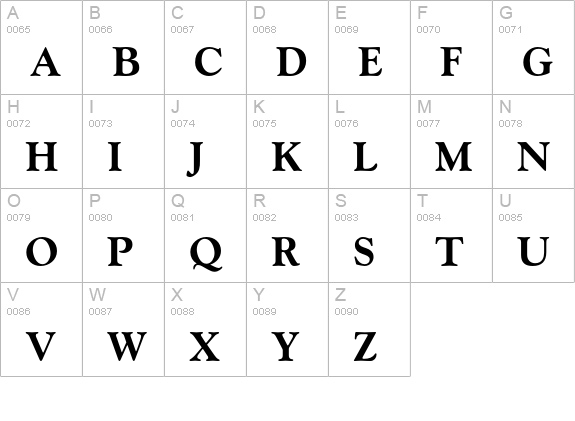
Goudy Std Extra Bold Font Details
Goudy Std Extra Bold is a strong, high-contrast variant in the Goudy typeface family \xE2\x80\x94 well suited to headlines, attention-grabbing titles, and strong calls-to-action.
Goudy Std Extra Bold is a striking and bold typeface that demands attention with its strong and impactful presence. Its thick and sturdy letterforms exude confidence and authority, making it ideal for headlines, titles, and any design project that requires a bold statement. The timeless elegance of the Goudy design, combined with the extra bold weight, creates a harmonious balance between classic sophistication and modern flair. This versatile font is perfect for a wide range of applications, from branding and packaging to editorial design and signage. Its high legibility and distinctive personality make it a standout choice for projects that require a bold and impactful typographic solution. Best of all, Goudy Std Extra Bold is available for free download at FontsMarket.com, allowing designers and creatives to access this premium typeface without any cost. Don't miss out on the opportunity to enhance your projects with the bold and dynamic character of Goudy Std Extra Bold!